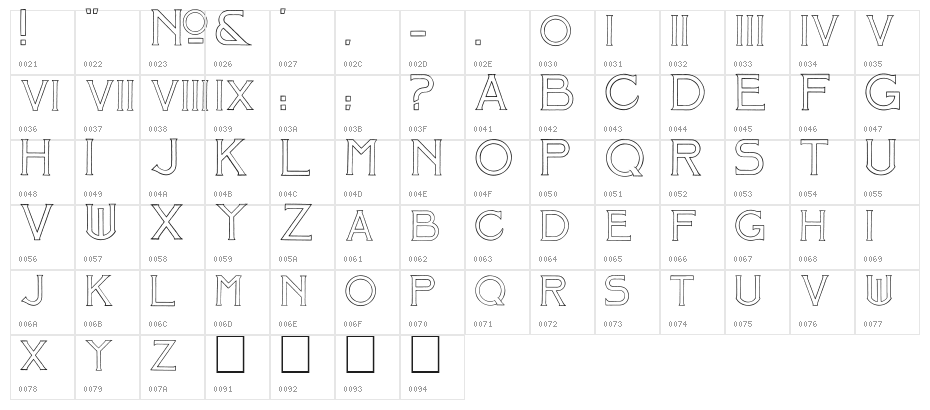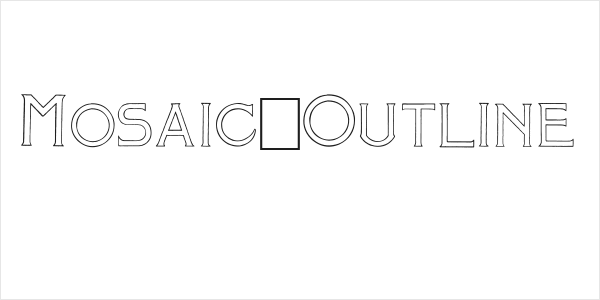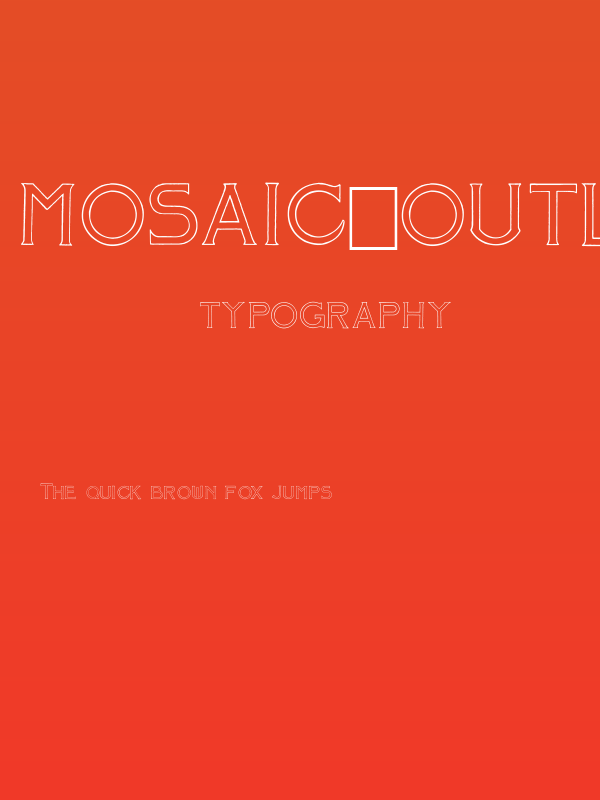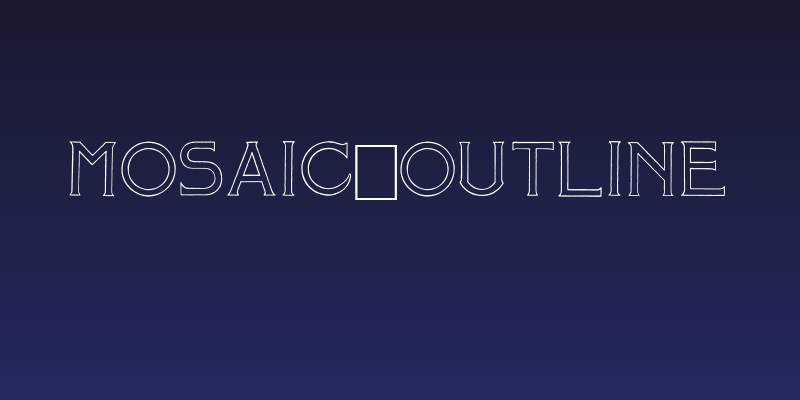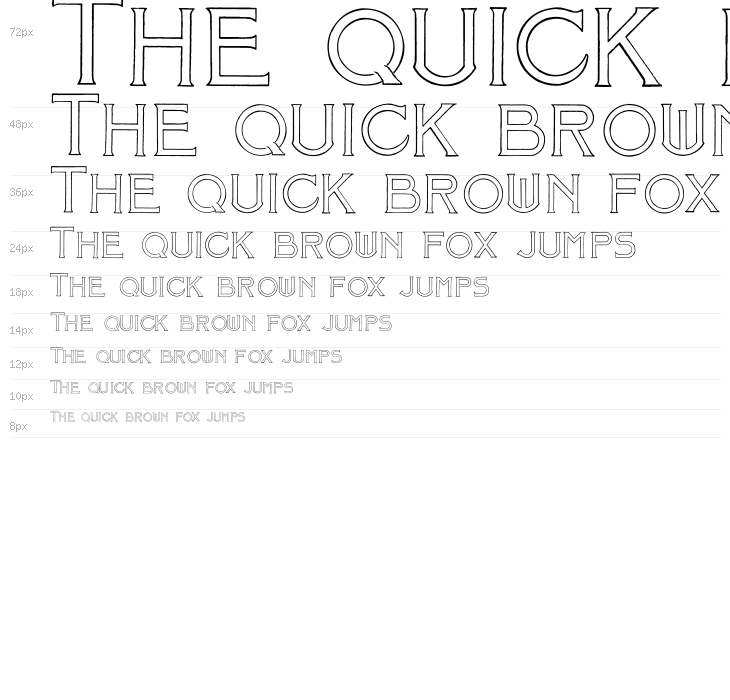
Mosaic_Outline Font
Mosaic_Outline Description
This font features a unique outline style that gives it a modern and artistic appearance. The characters are constructed with a double-line technique, creating a hollow effect that is both eye-catching and sophisticated. The uppercase letters are bold and geometric, with sharp angles and clean lines, while the lowercase letters maintain a similar structure, offering consistency across the typeface. The numerals are distinct and align well with the overall design, ensuring readability. Special characters are included, maintaining the same outline aesthetic, making this font versatile for various design needs.
| Proposed Projects | Ideal for branding, posters, headlines, and creative projects that require a modern and artistic touch. |